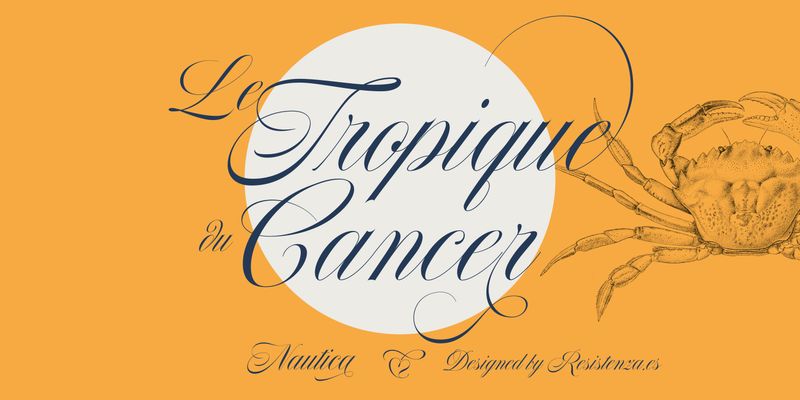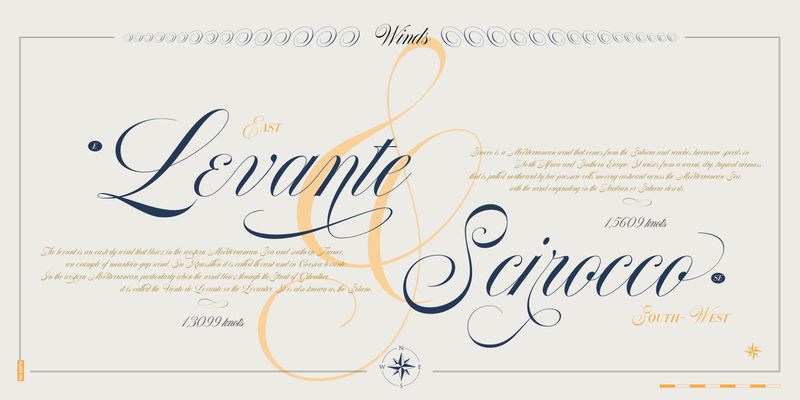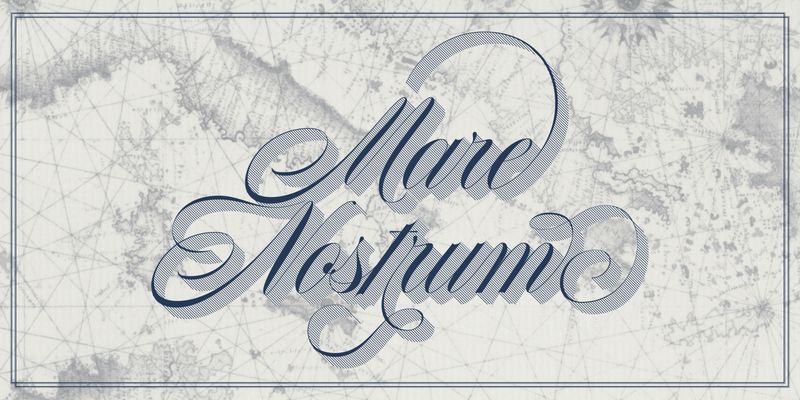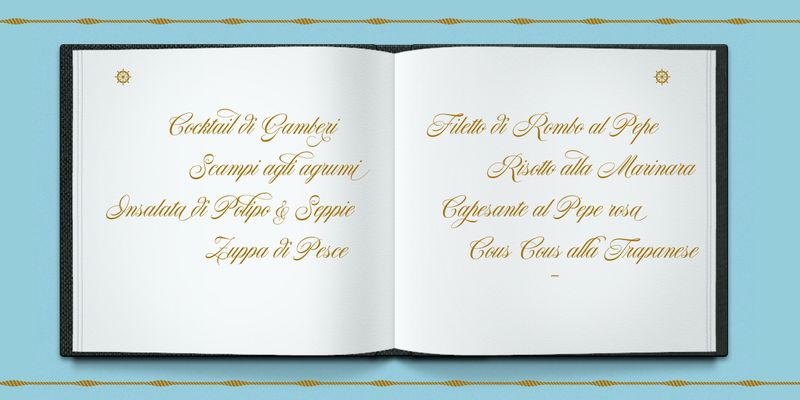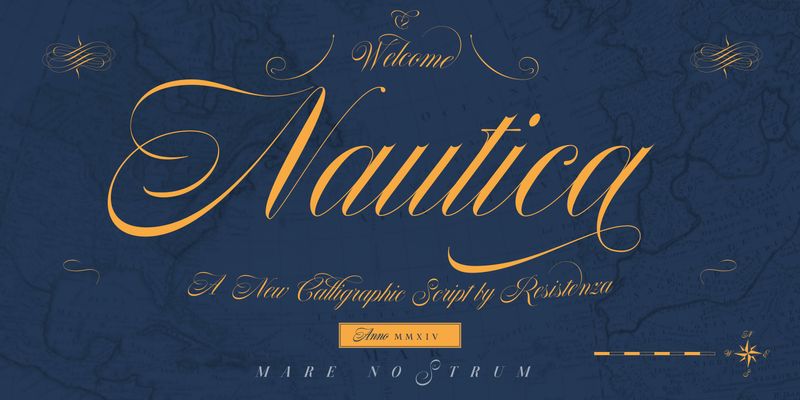
Resistenza
Resistenza is a type foundry consisting of Giuseppe Salerno, a trained calligrapher who gained his graphic design skills in Torino, Italy, and Paco González, a self-taught Spanish-born designer from Valencia. Working mostly by hand, a bold, humanistic quality comes through in their graphic design, emphasizing a connection with the places and people that use a particular product or service. Oftentimes, Resistenza create collections of their typefaces to work in a set or family, building on a brand that can work throughout a piece. Creating a library of brush scripts and calligraphic typefaces in addition to unique illustrations, sketches, icons and more, the two complement each other when coming to together for a particular client. With a deep passion for bringing type to life, beginning traditionally with pen and paper, and eventually implementing digitisation, the duo express the distinct features of their typefaces through the various influential cities they work and live in Berlin, Madrid, Torino and Valencia.